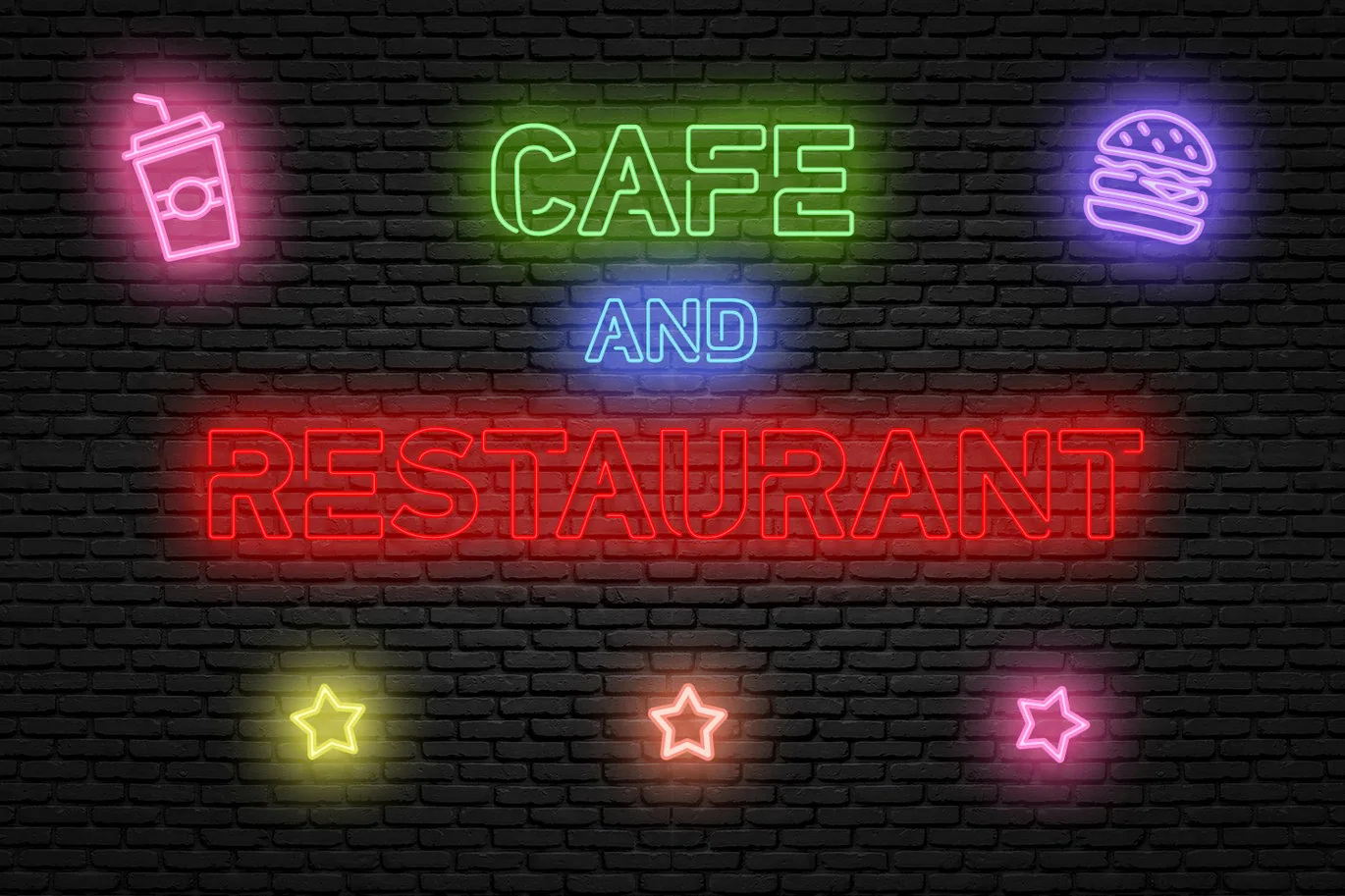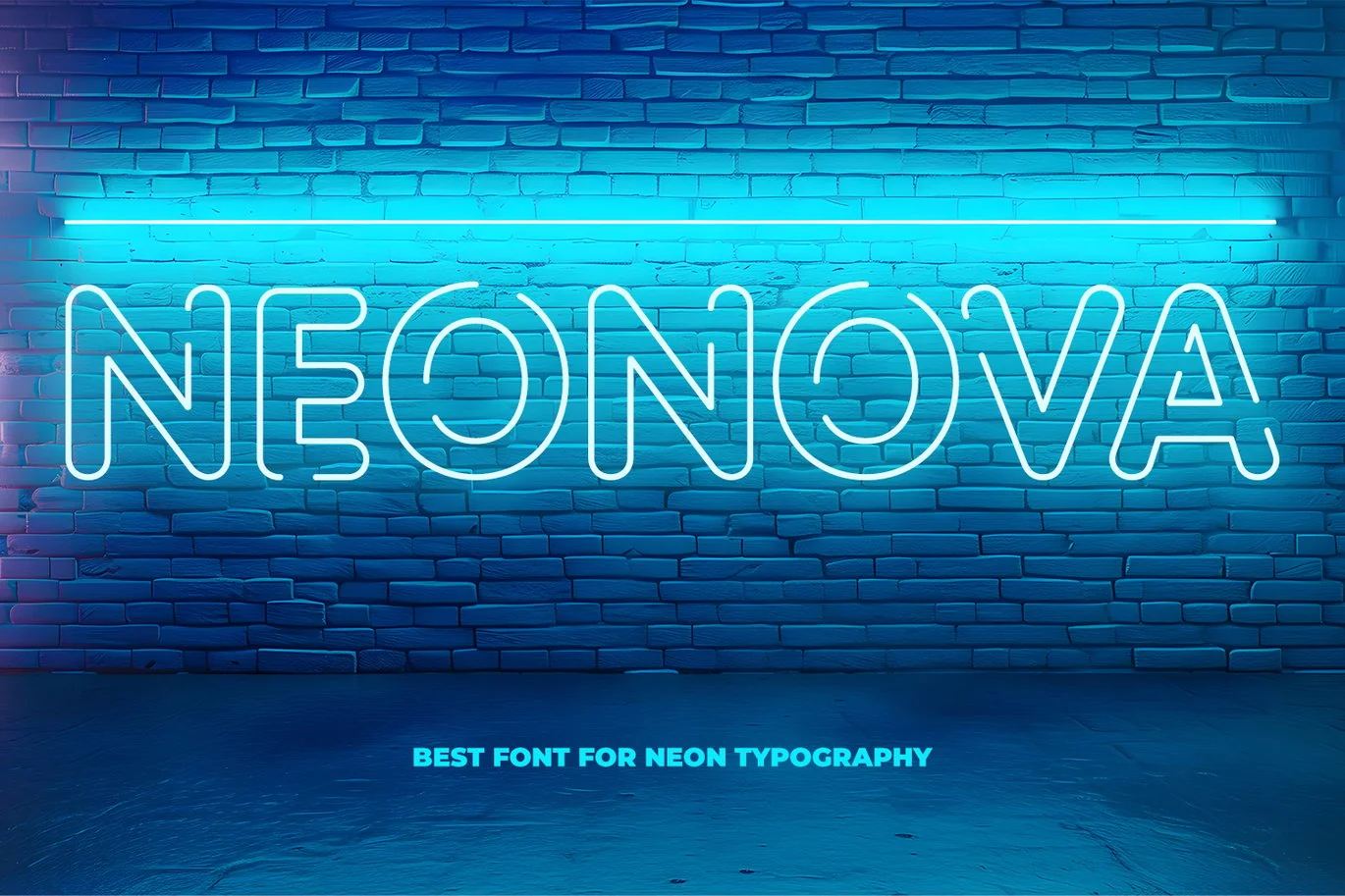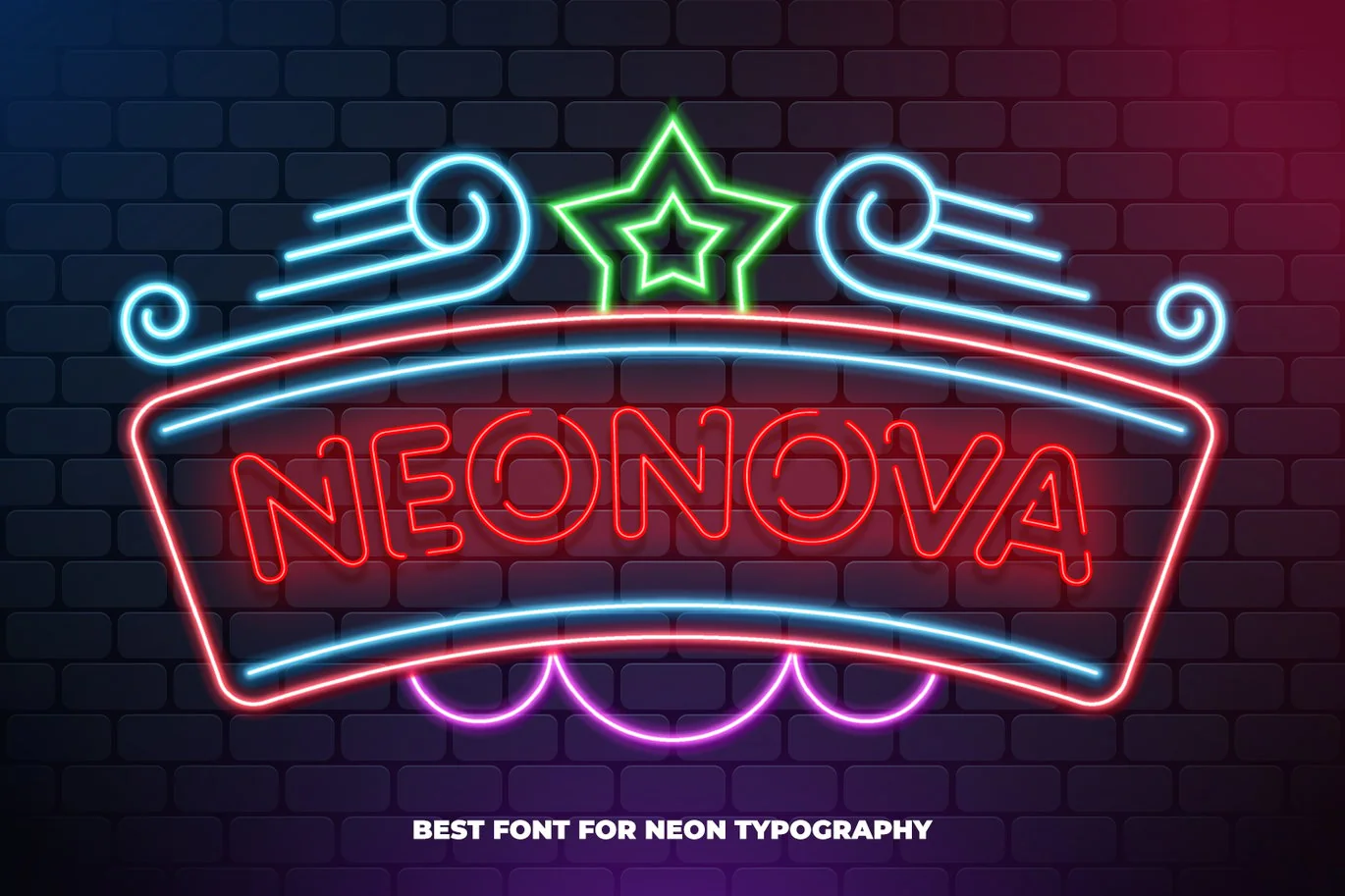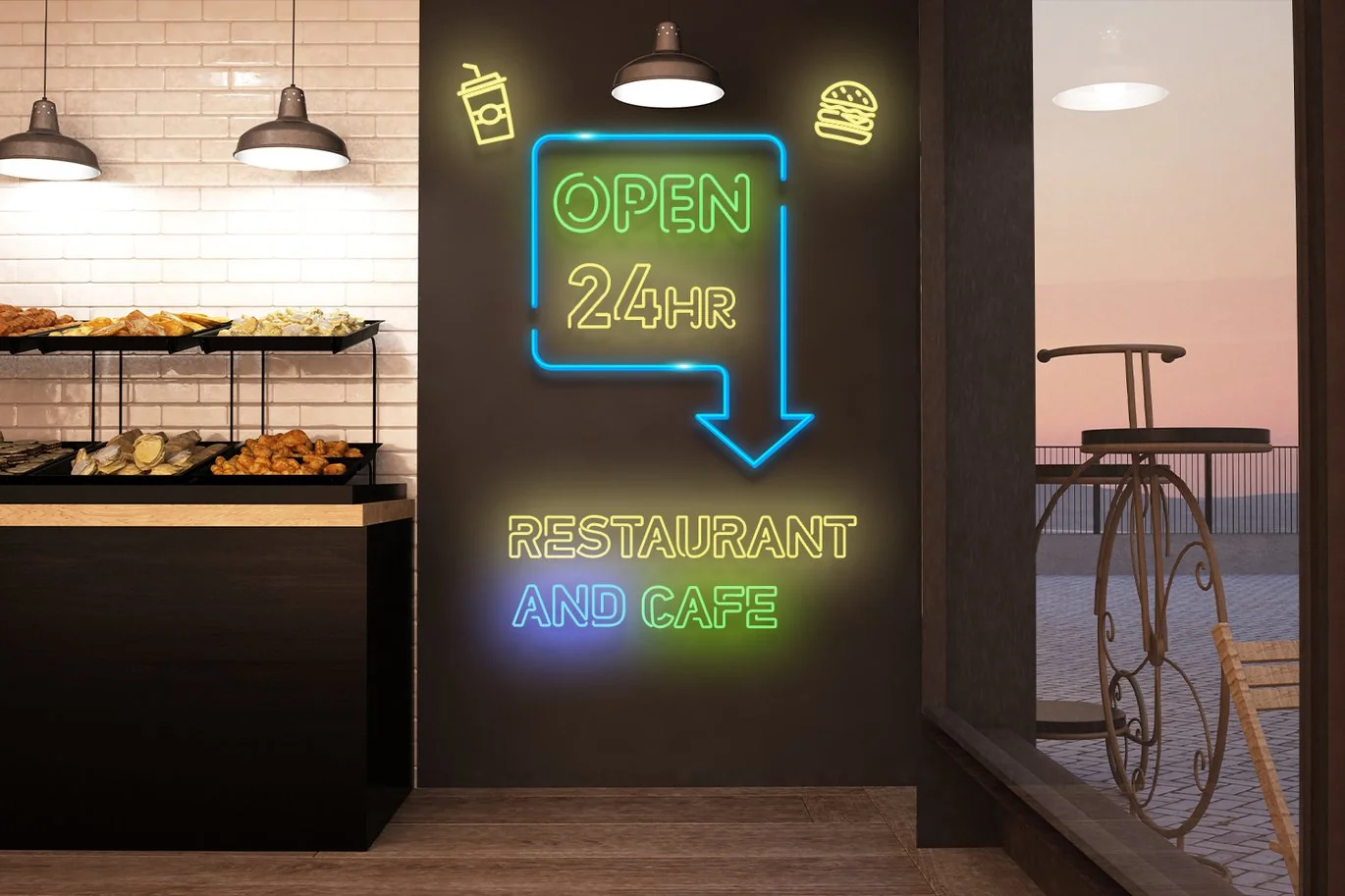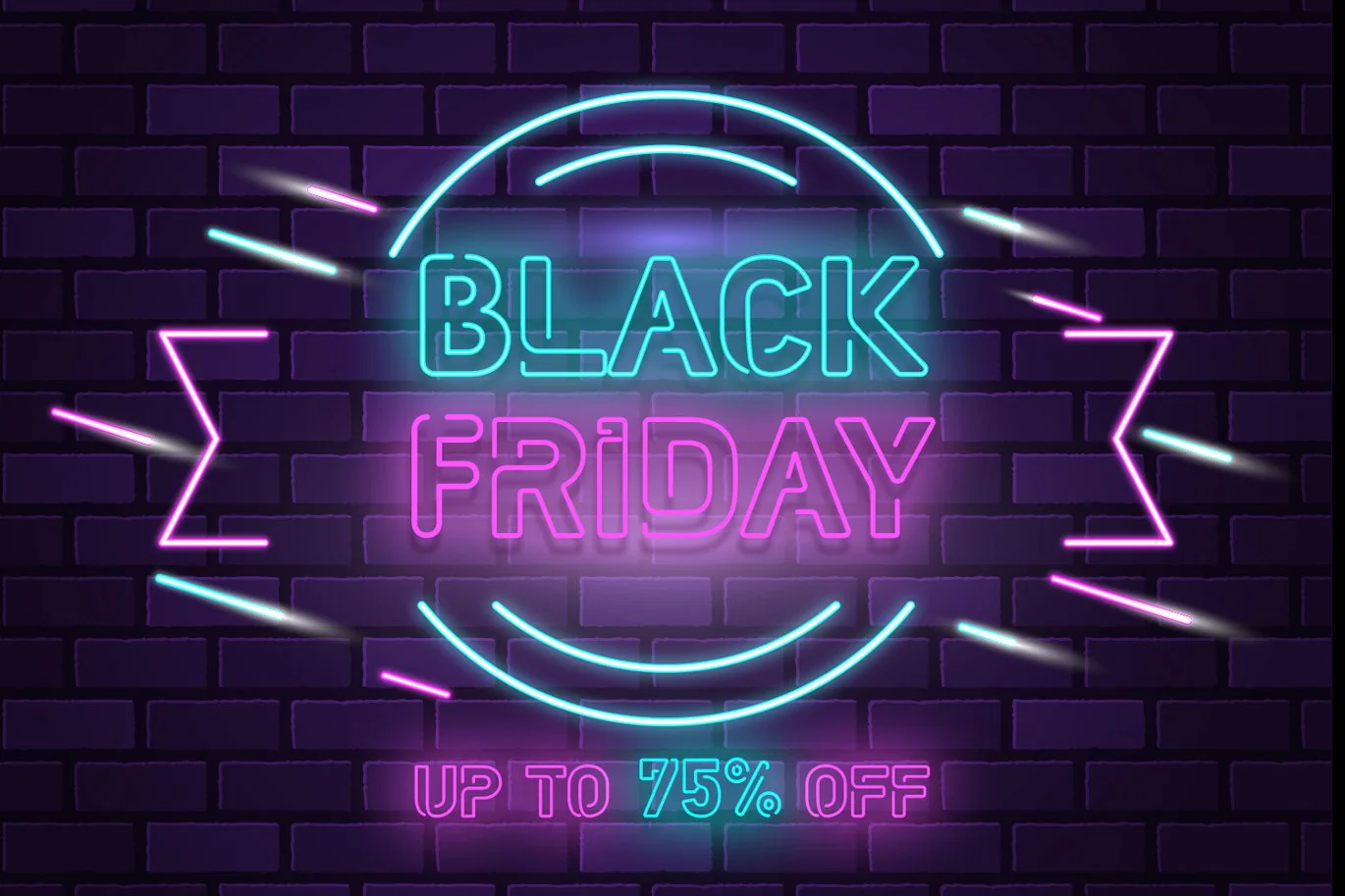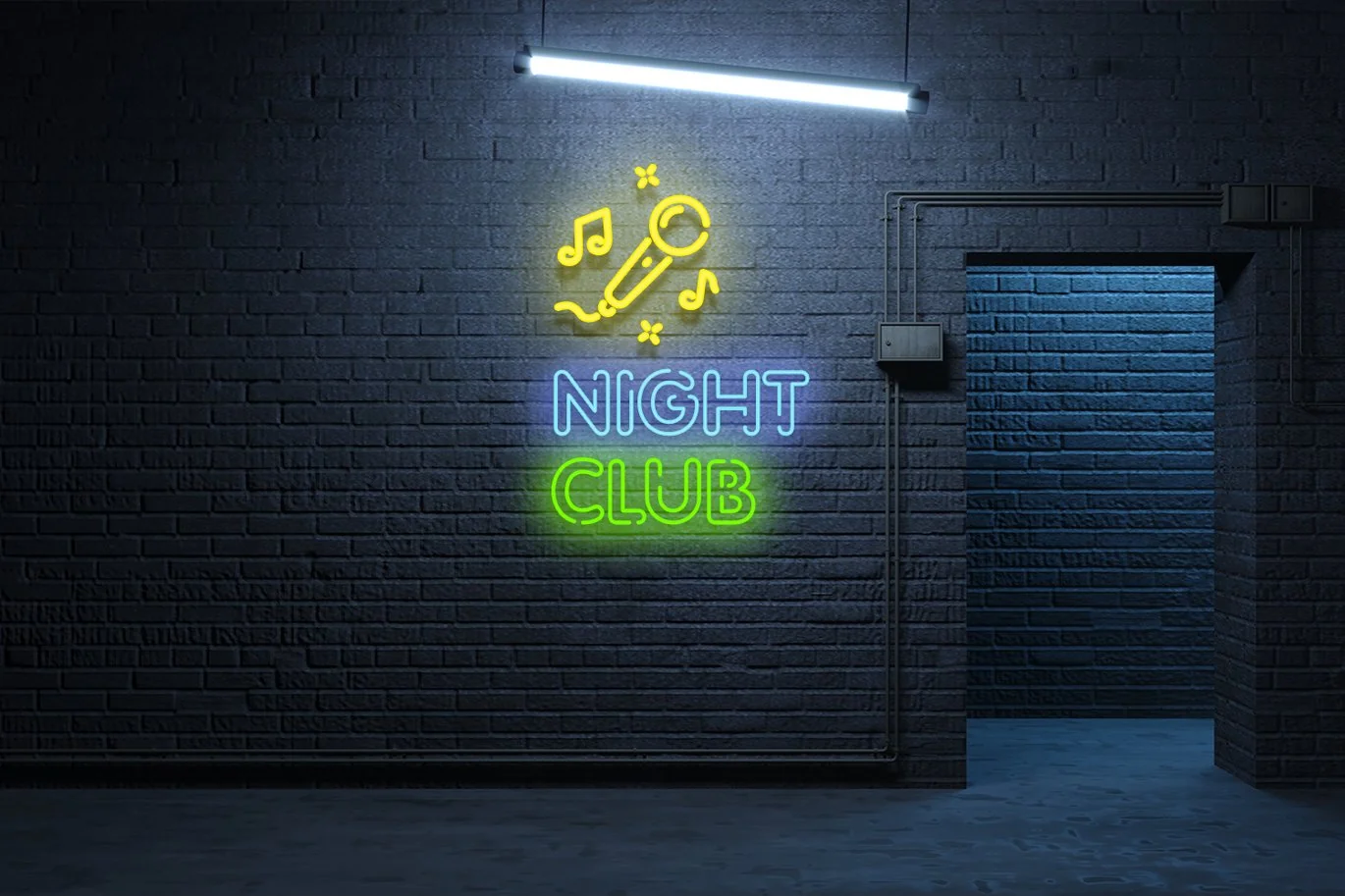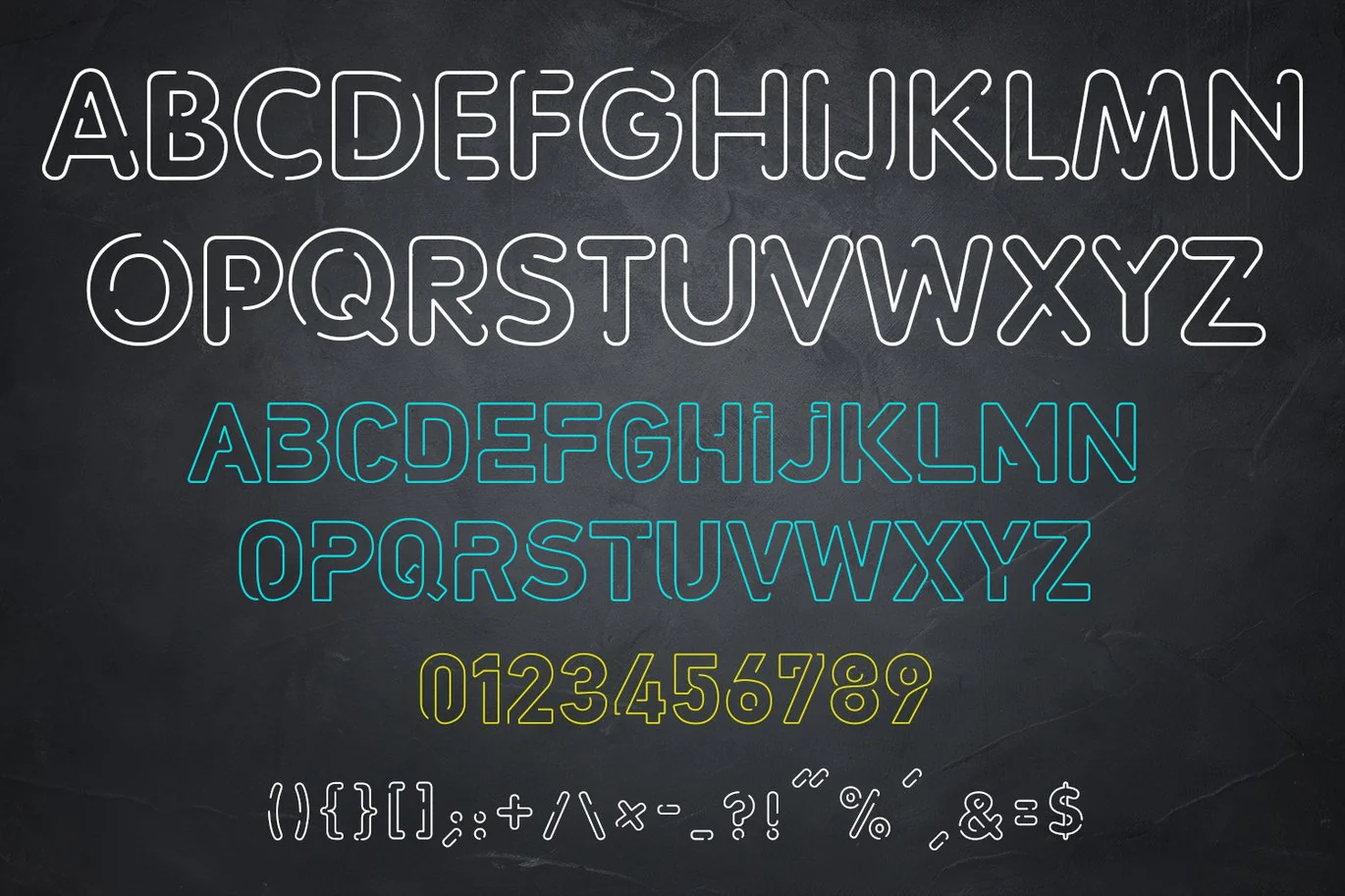
Neonova Font
Font Description:
Neonova is a dazzling neon-style font that blends retro vibes with futuristic elegance. Perfect for eye-catching signage, bold headlines, and vibrant designs, Neonova adds an electrifying glow to any project. Its sleek, luminous lines evoke a modern edge while capturing the classic allure of neon lights. Ideal for branding, digital art, and immersive visuals, Neonova ensures your creations shine brightly and stand out in any crowd.
- Unique letterforms